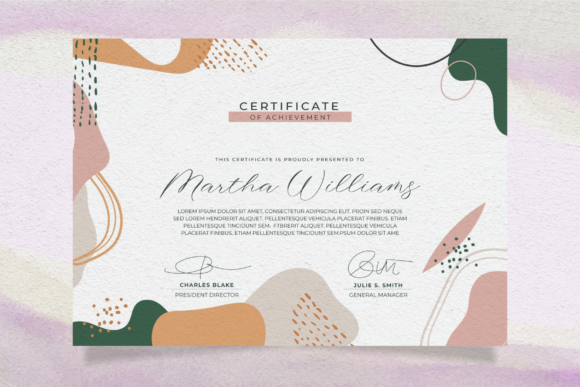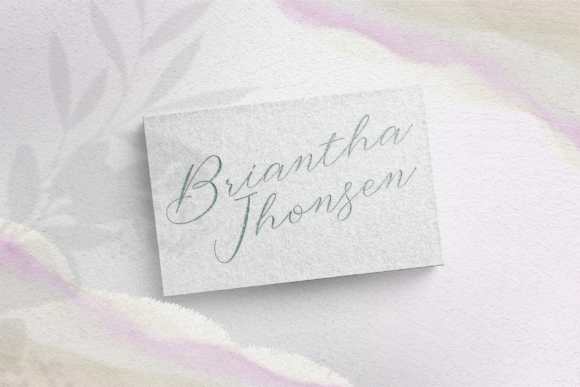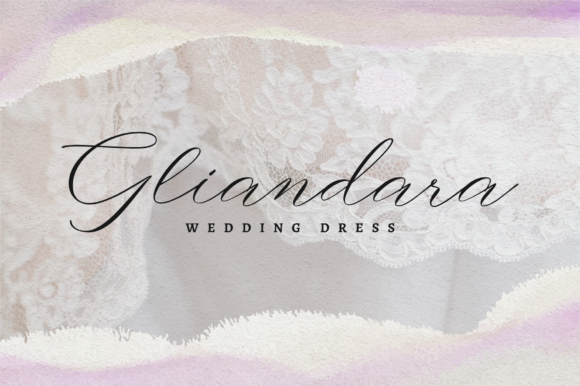
About Saulifriend Font
Introducing “Saulifriend,” an incredibly elegant and flowing handwritten font that exudes grace and charm. Its stunning beauty makes it a perfect fit for a wide range of design projects, adding a touch of handcrafted elegance to every creation. Prepare to be captivated by its graceful curves and watch as it becomes your go-to font for crafting stunning wedding invitations, thank you cards, quotes, greeting cards, logos, business cards, and any other design that craves a touch of exquisite handwritten sophistication.
With “Saulifriend,” you have a font that carries a sense of refinement and elegance. Its flowing and elegant script style brings an air of authenticity to your designs, creating a delightful visual experience. Whether you’re working on elegant wedding invitations, heartfelt quotes, or luxurious branding, this font adds an aura of sophistication that leaves a lasting impression.
The features of “Saulifriend,” including its varying baseline, smooth lines, gorgeous glyphs, and stunning alternates, add depth and allure to your designs, making them stand out with finesse.
Embrace the elegance of “Saulifriend” as it elevates your designs to new heights. Its smooth lines and varying baseline create a sense of grace and movement, adding an extra touch of beauty to your creations.
Unleash your creativity and notice how “Saulifriend” enhances your designs with its elegant and flowing touch. Whether you’re crafting exquisite logos, designing captivating stationery, or creating eye-catching social media posts, this font will bring a sense of beauty and authenticity that captivates your audience.
So, fall in love with the elegance of “Saulifriend” and let it become your creative ally. Allow its stylish and graceful style to inspire your designs, turning them into exquisite works of art. Whether you’re a seasoned designer or a passionate enthusiast, “Saulifriend” empowers you to create visuals that stand out and make a statement. Let “Saulifriend” be the key to unlocking the sophistication and elegance in your designs, and watch as it takes your projects to new levels of refinement and excellence!